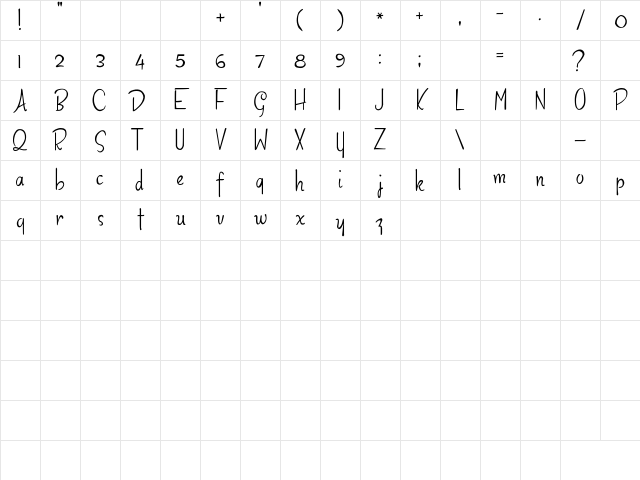
Complete 2Peas Well Behaved 2Peas Well Behaved glyph index. Displaying only characters natively supported by 2Peas Well Behaved 2Peas Well Behaved font.
2Peas Well Behaved is a composed and adaptable typeface that performs quietly and consistently across a wide range of design contexts.